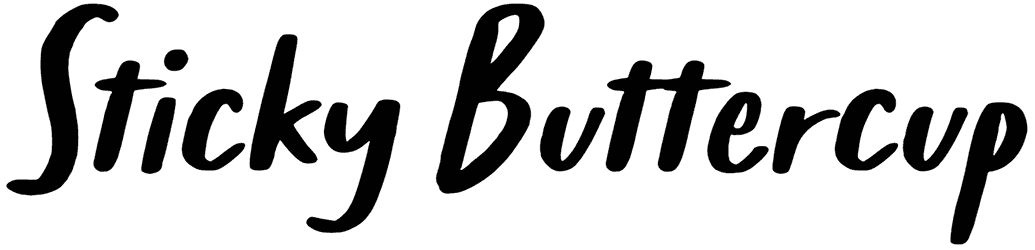
Sticky Buttercup Font
The Sticky Buttercup is a well-designed font that will amaze you. This handwritten font has a popular style and seems interesting to the viewers. You may use the Sticky Buttercup for various cases, such as business cards, postcards, and magazine covers.
This sticker font’s letters are bold and not entirely strict, which grabs the attention and sends a pleasant vibe. They have smooth, rounded edges with a tall form that seems memorable to the viewers, so give it a try now.